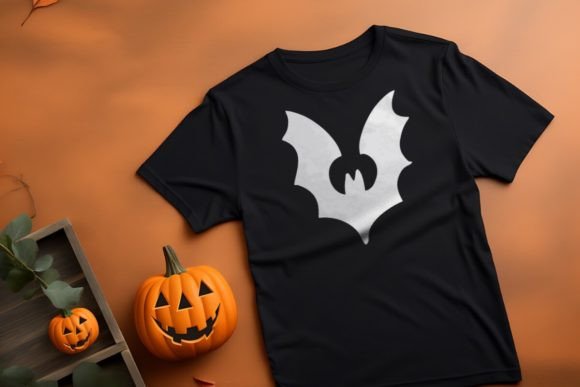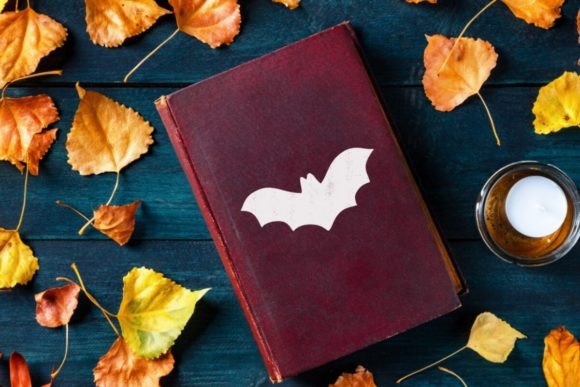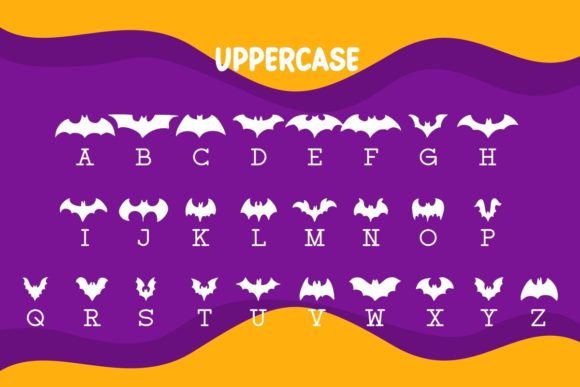
Scary Bat Font: Free Download Now
Scary Bat Font – Free Download
Introduction to Scary Bat Font
Introducing our β€˜Scary Bat’ Dingbat Font, the perfect addition to your Halloween-inspired design toolkit.
This unique and spooky dingbat font is designed to infuse a touch of eerie charm into your Halloween projects With a collection of bat-themed icons, it’s a must-have for anyone looking to add a dose of haunting fun to their creations.
Scary Bat Font offers exceptional quality and versatility, making it a valuable addition to your design toolkit. Whether you’re creating for personal projects or commercial use, Scary Bat Font delivers professional results.